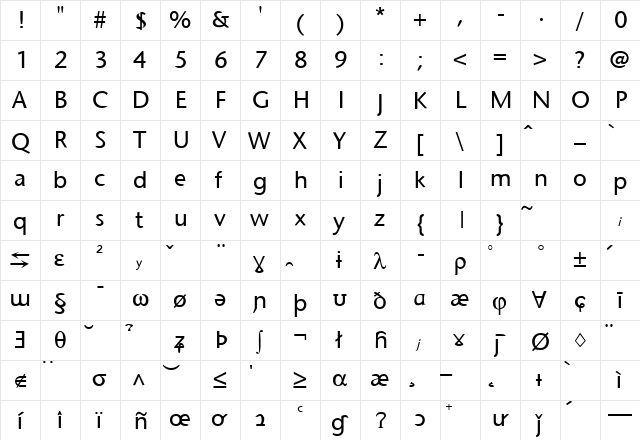
SapirSans Regular Font Preview
SapirSans Regular
Design Context for SapirSans Typeface
SapirSans takes a measured approach to typography — its balanced proportions and neutral character make it a reliable workhorse for both digital and print work.